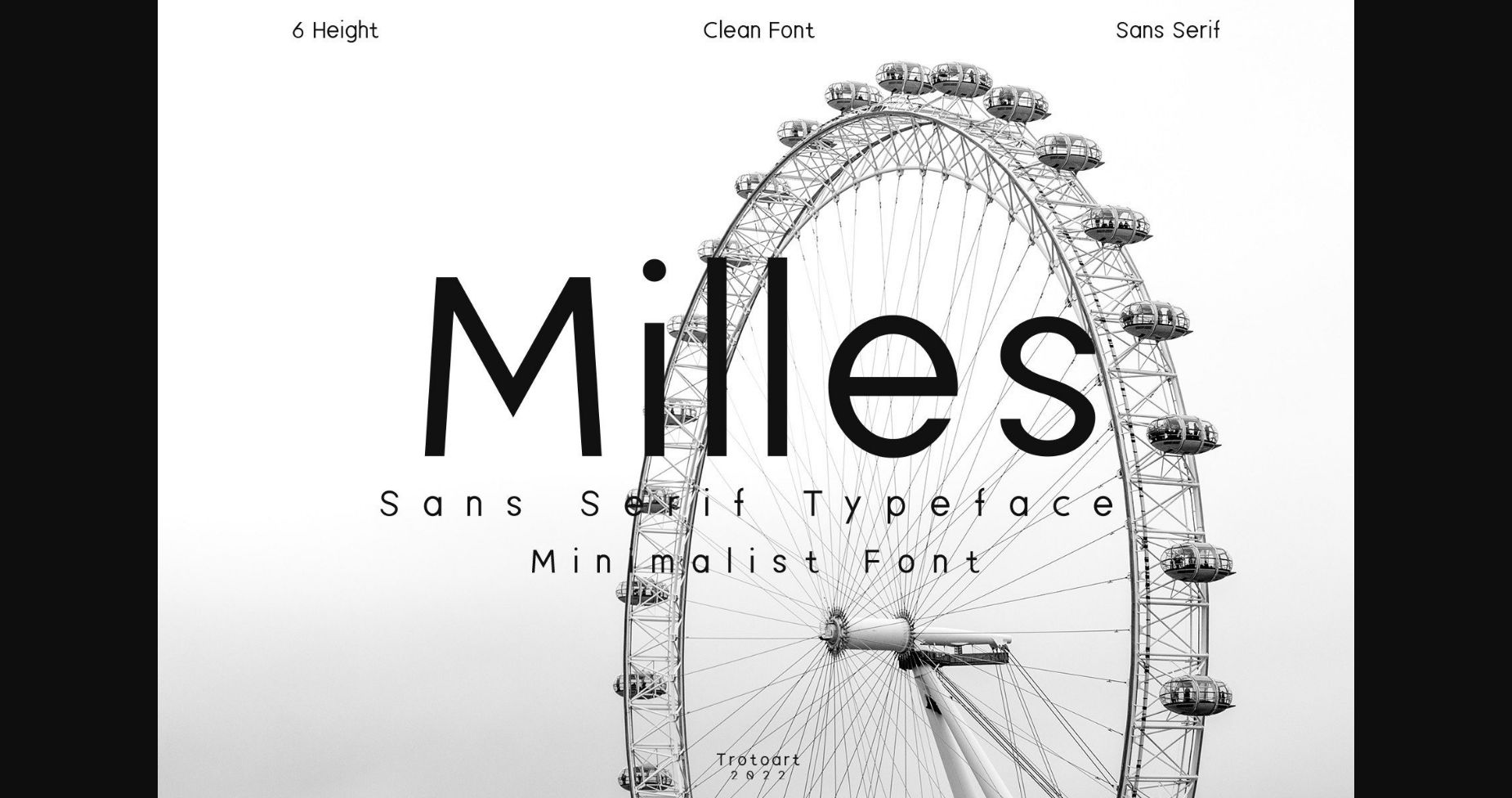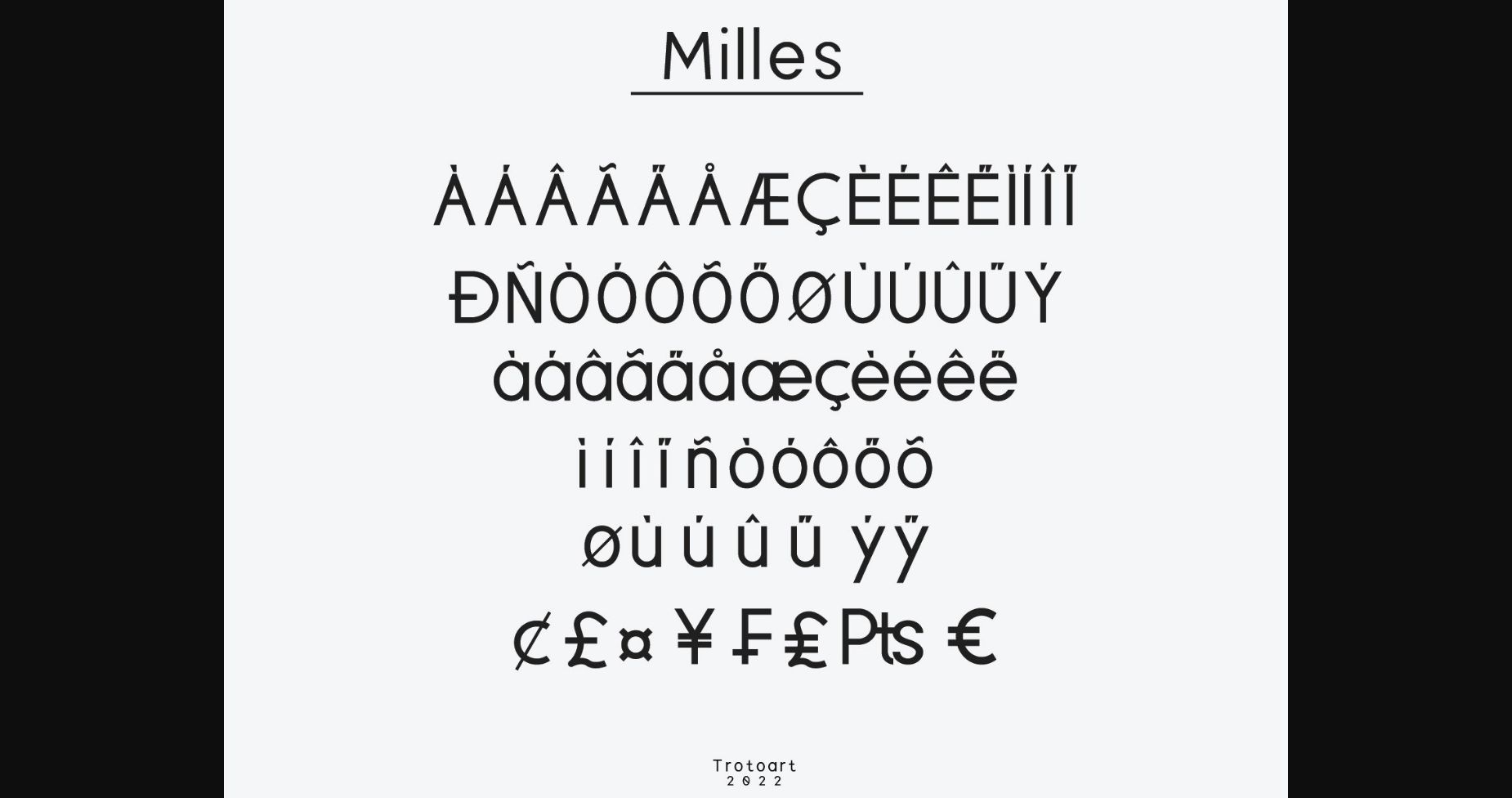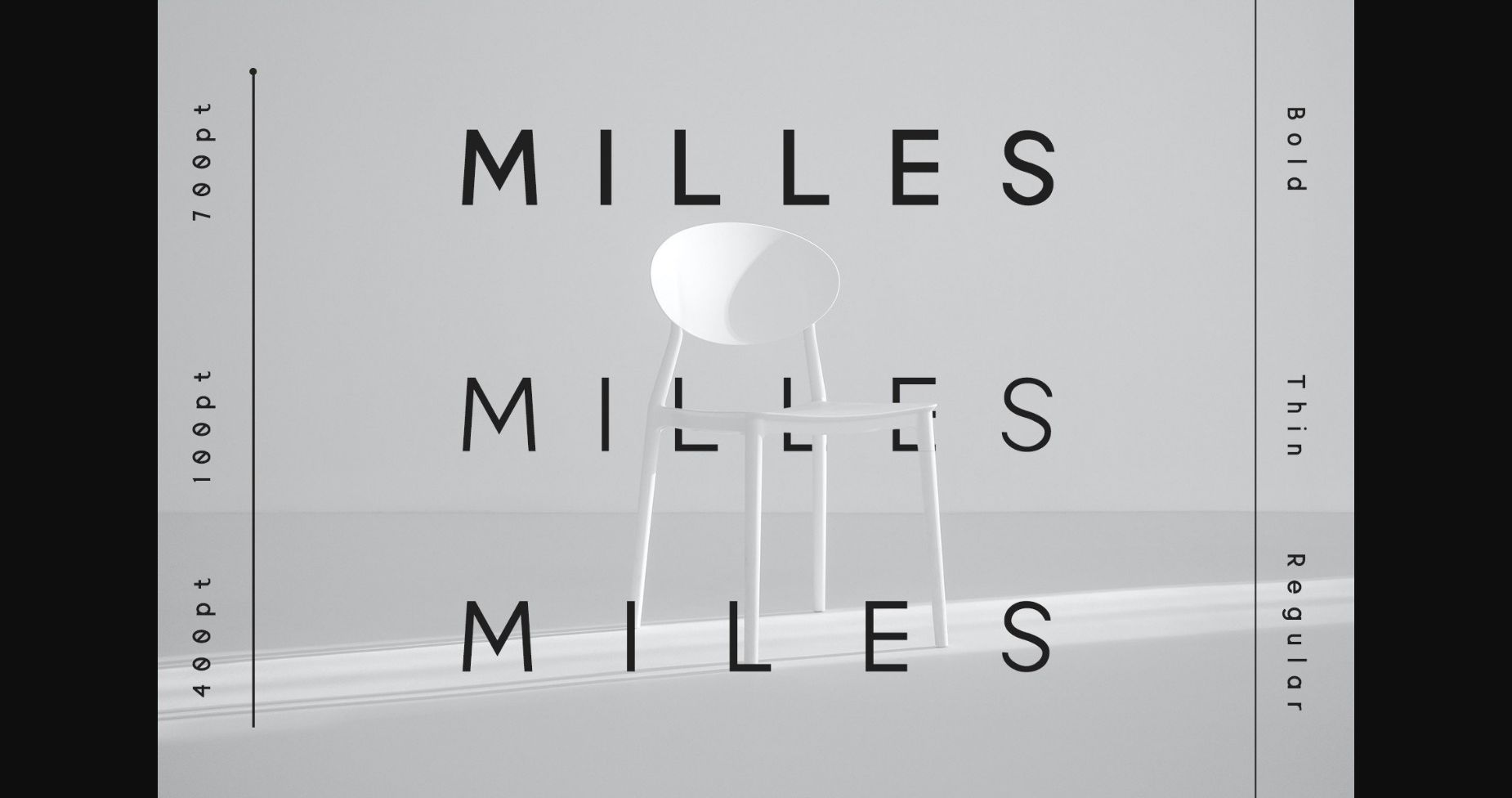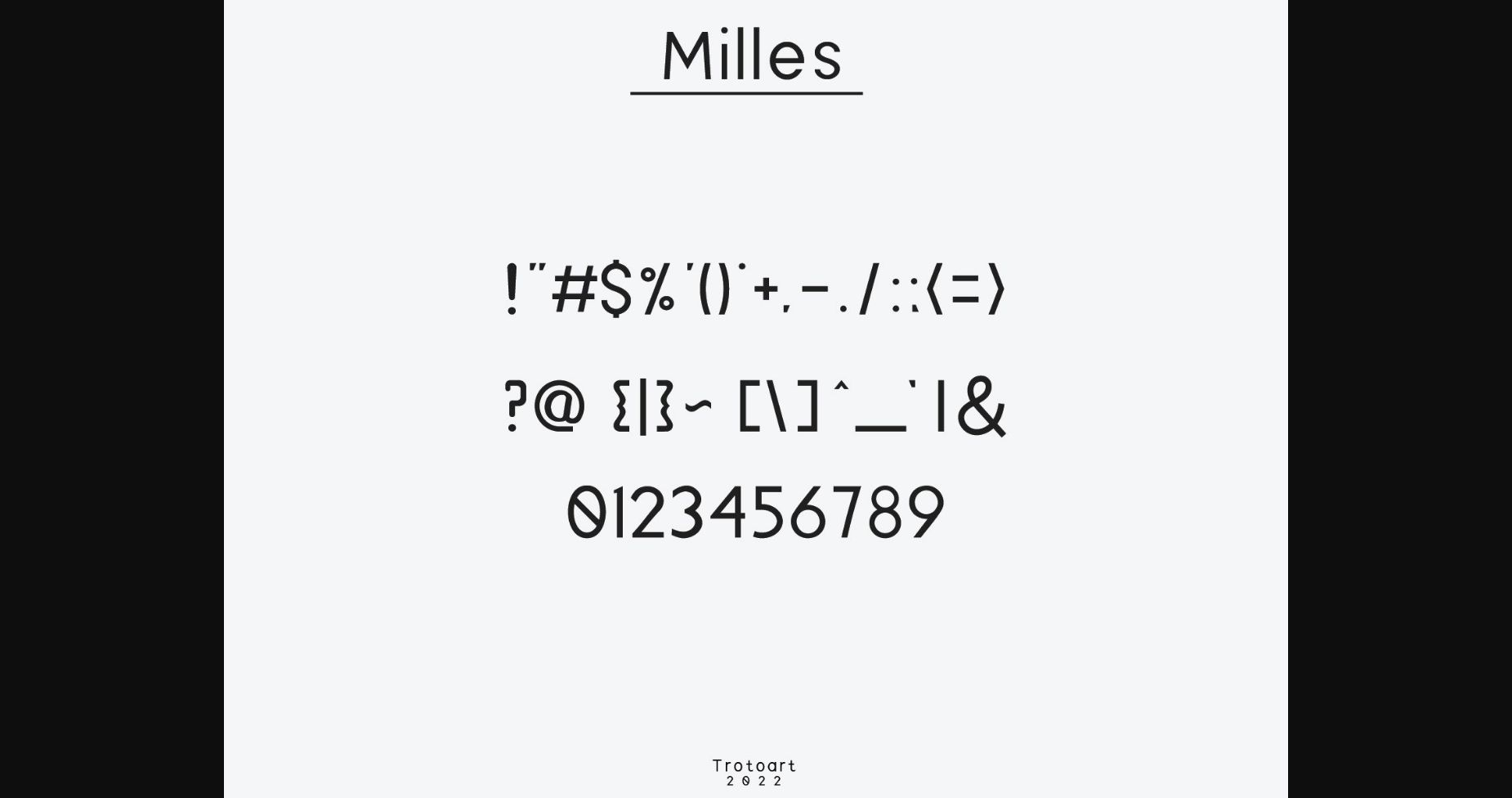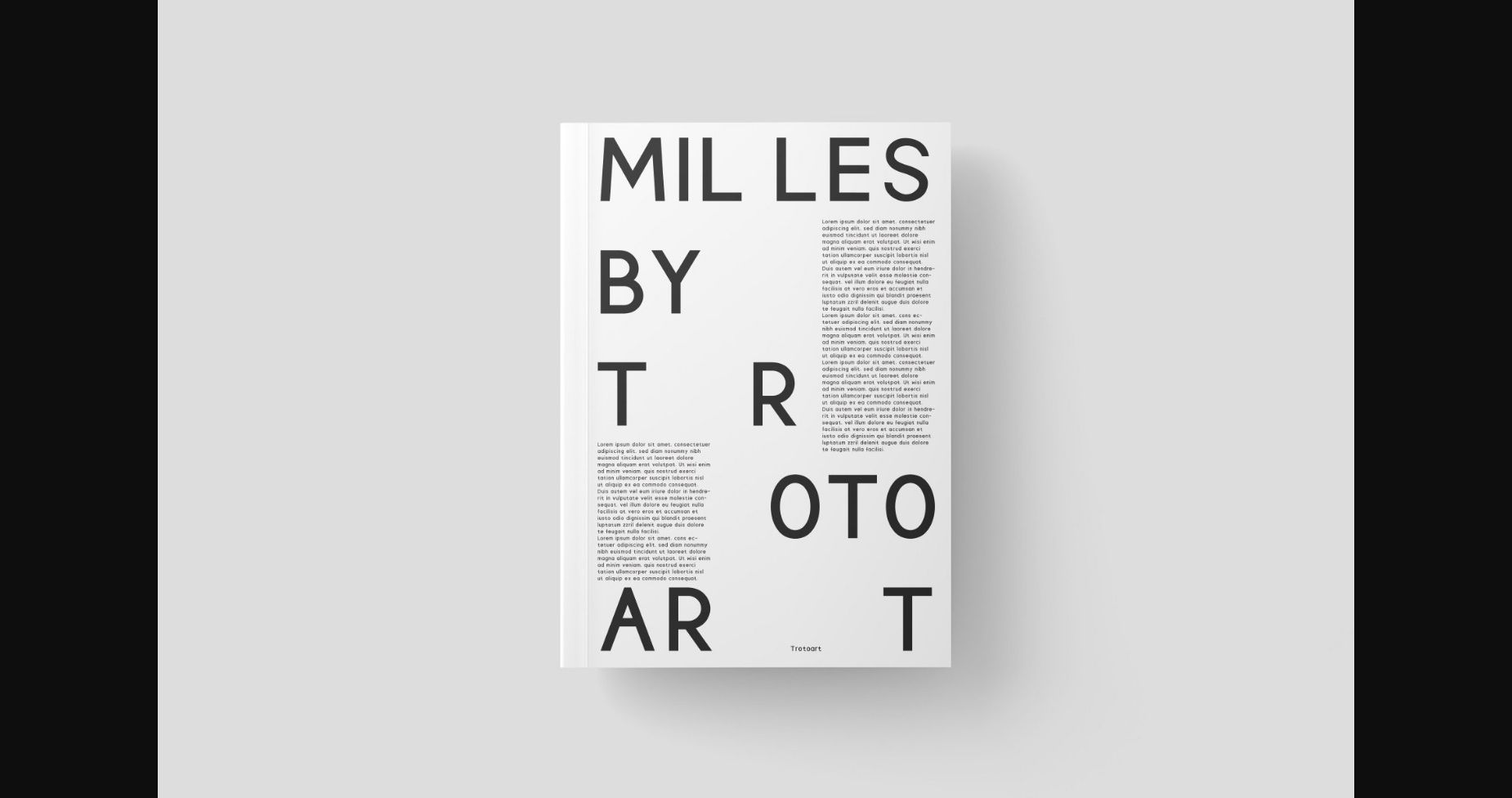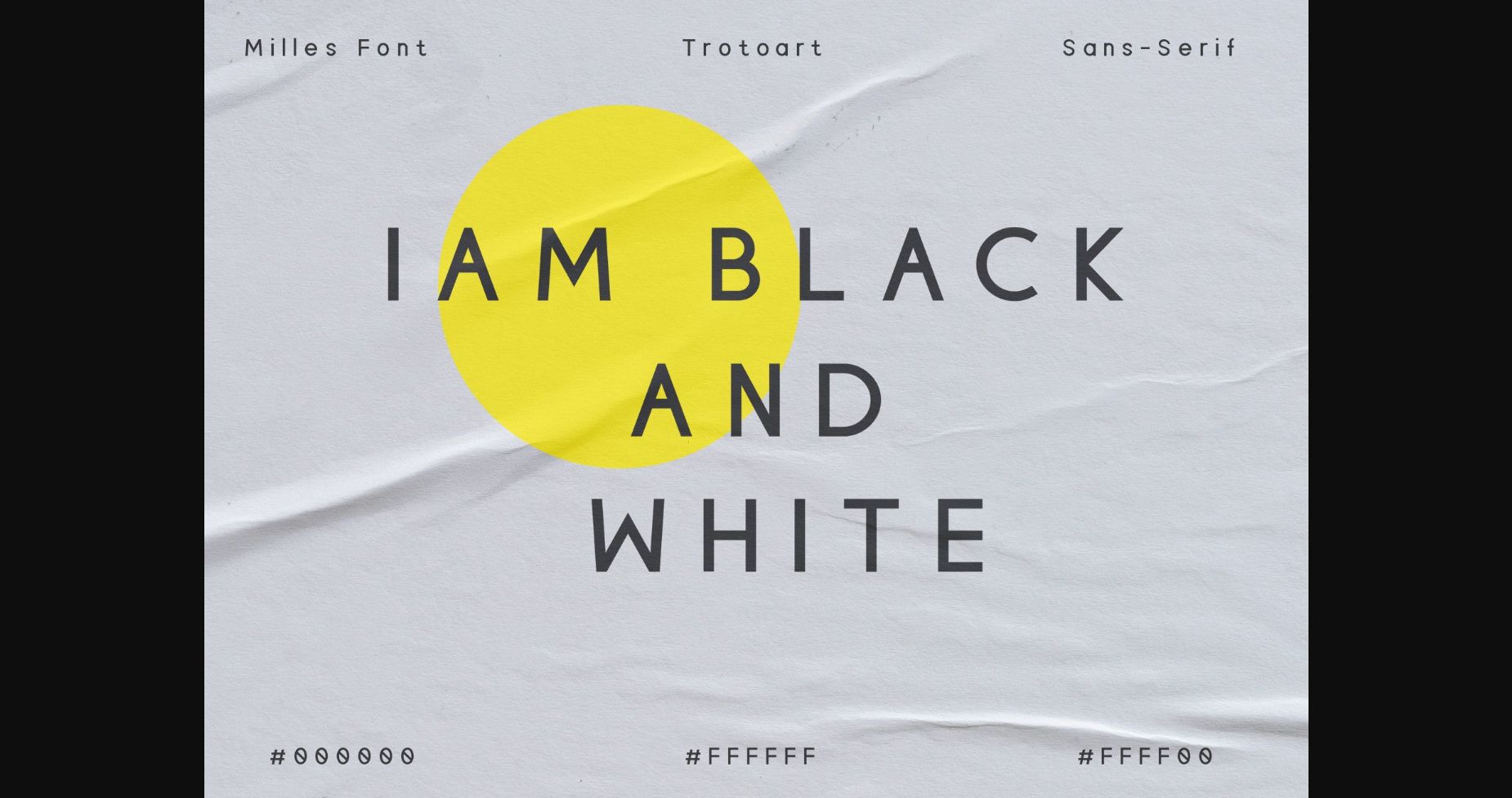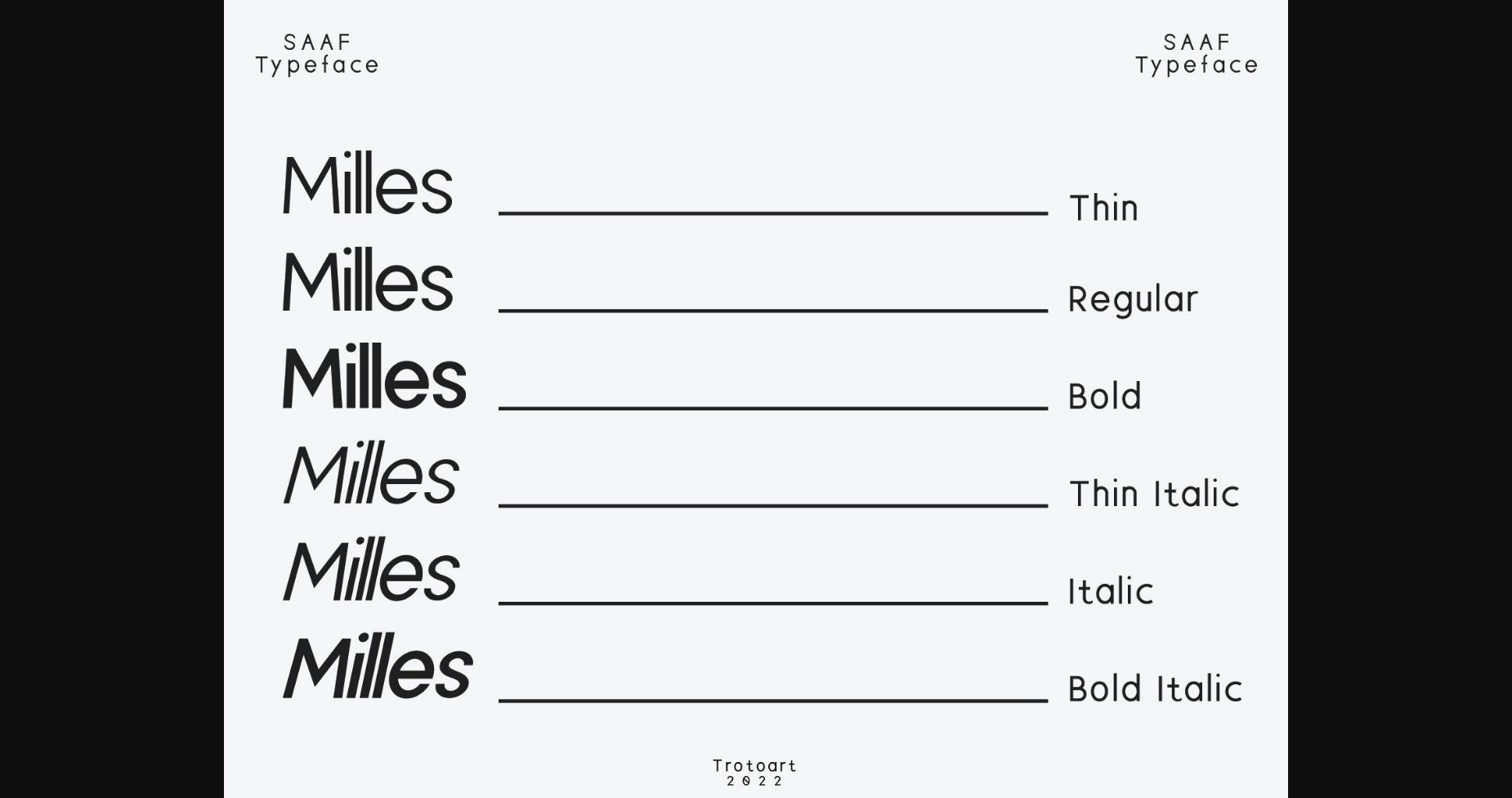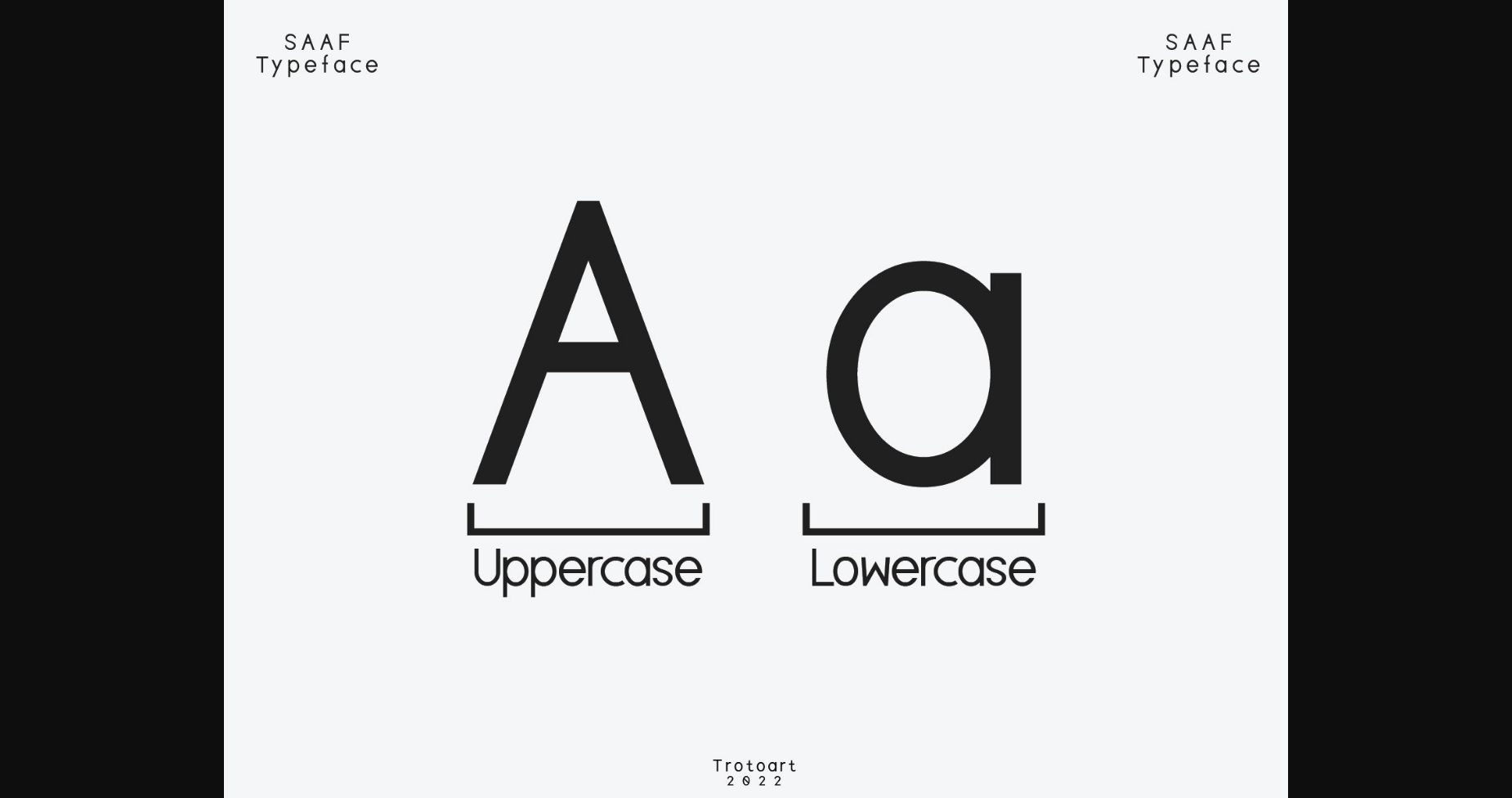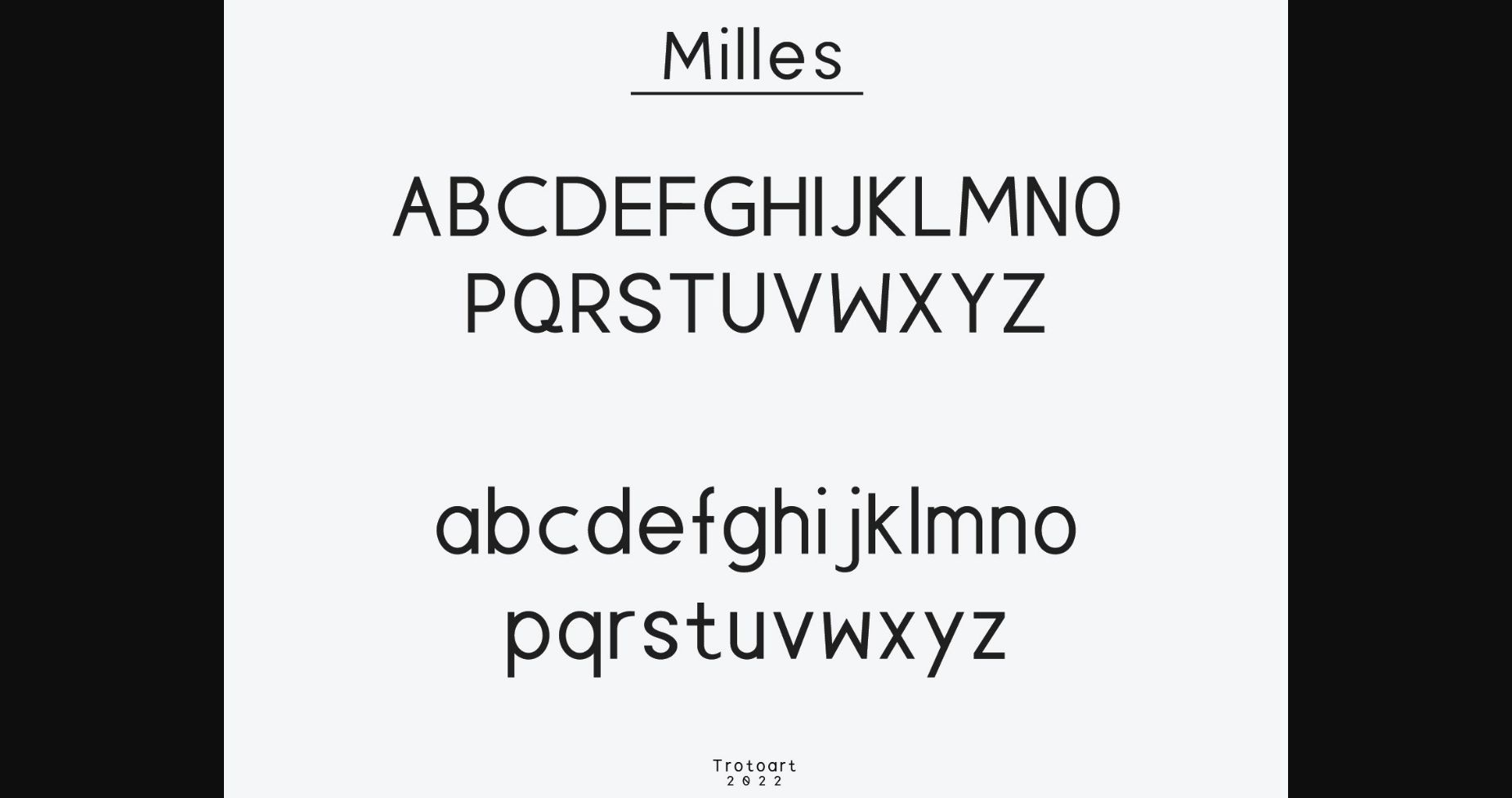
Milles Font
About Milles Font
Milles is a geometric sans serif and clean variable font. The typeface is versatile to blend into your design.
Perfect anywhere you need the right final touches: branding, publishing, titles, books, magazines, and use on UI/UX design.